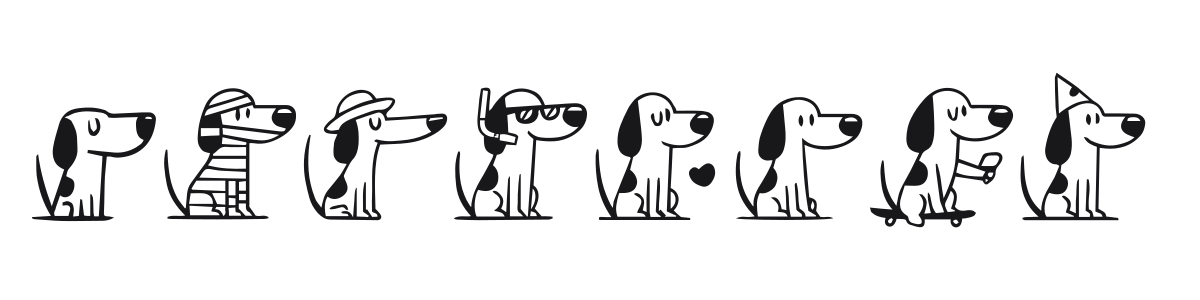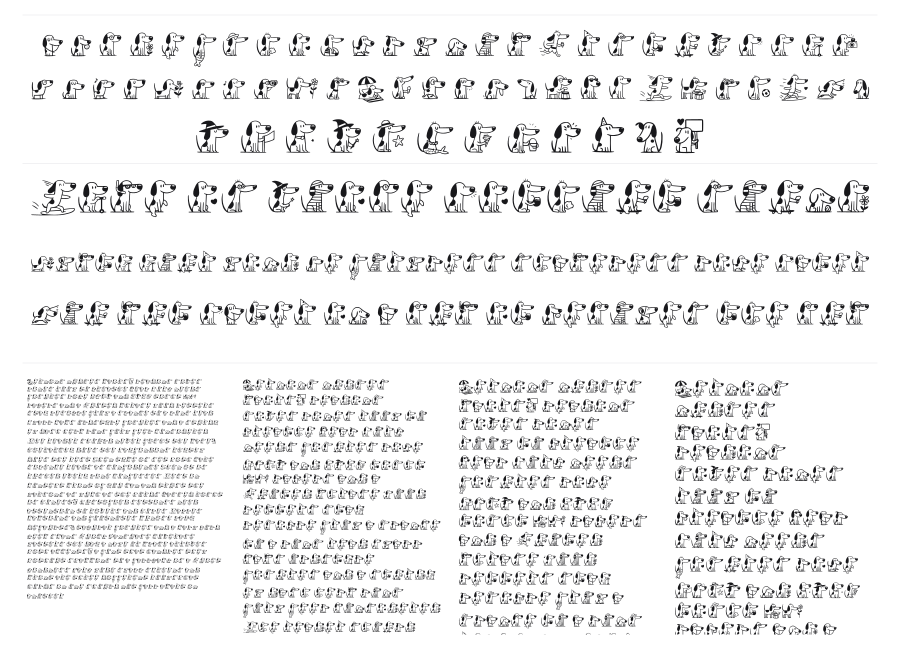
Dogpixur
Dogpixur is a dingbat font built around a single lovable spotted dog drawn in dozens of poses and costumes. Each glyph is a small cartoon illustration rendered in clean outline style, with the character sitting, strutting, lounging, or dressed up in hats and accessories. A natural pick for pet-related packaging, kids' materials, or anywhere a dose of canine charm fits the brief.